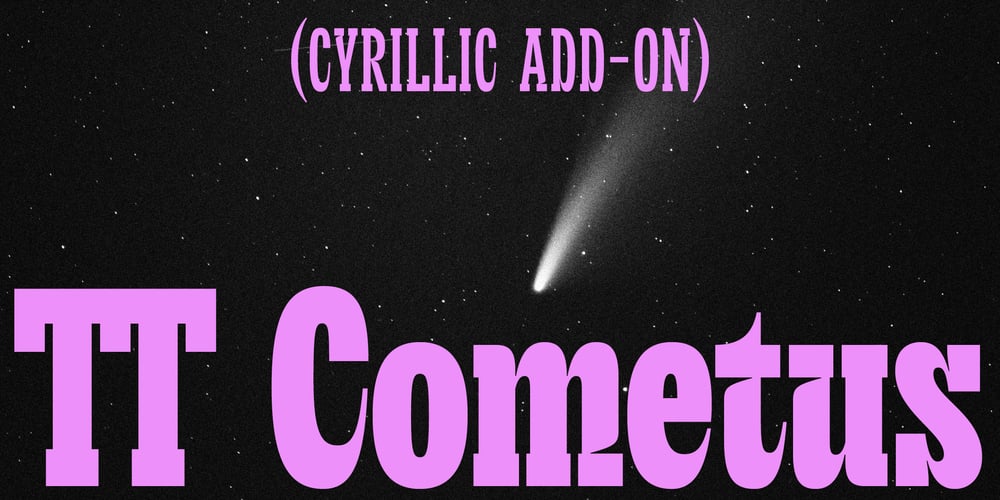
TT Cometus
TT Cometus font
TT Cometus Font Family was designed by Marina Khodak, Anna Tikhonova, TypeType Team and published by TypeType. TT Cometus contains 5 styles and family package options. Introducing TT Cometus, version 2.000, which now supports Cyrillic alphabets! We significantly enhanced the font’s character set and technical features. TT Cometus is a modern slab serif. The typeface’s name evokes the image of a comet—a powerful and weighty celestial body with a beautiful tail slicing through space at an incredible speed. This is the key to understanding this font. TT Cometus embodies a balanced personality: impressive and sturdy but energetic and dynamic at the same time. When designing this typeface, we aimed to incorporate heavy serifs typical for slabs into a modern and dynamic appearance. To achieve this, we combined sturdy details with completely opposite shapes, added a handmade feel, and drew inspiration from brush movements in calligraphy. So, TT Cometus stands out for its sharp terminals resembling comet tails, which are particularly noticeable in the letters c, y, e, and t. Another curious detail is the stylized junctions of arcs and bowls that add fluidity to the font. Also, the typeface’s sturdy serifs allow it to maintain stability. The font features a slight contrast between horizontal and vertical element weights and a high contrast in serifs, junctions, and glyph terminals. The enhanced version of the typeface boasts long-awaited Cyrillic alphabet support, new stylistic sets and OpenType features, entirely reworked kerning, and improved hinting. TT Cometus shines best in large point sizes. This font is anything but neutral! It’s eye-catching and looks flawless in headlines, logos, and branding – wherever attention needs to be captured. The updated TT Cometus includes: 5 font styles: 4 roman ones and one variable font with a weight variation axis; 1000 characters in each font style; 33 OpenType features, counting in numerous ligatures and sets of alternate ampersand and letter g glyphs; 230+ languages support.